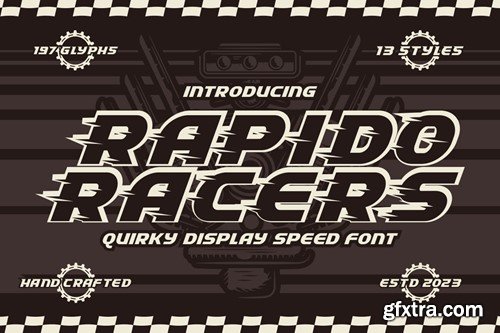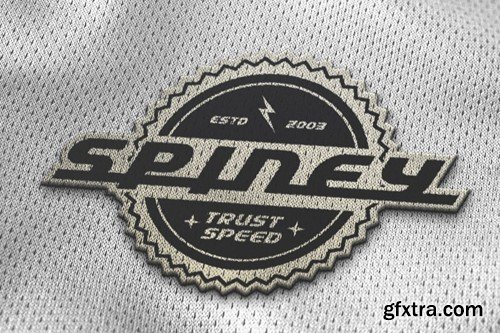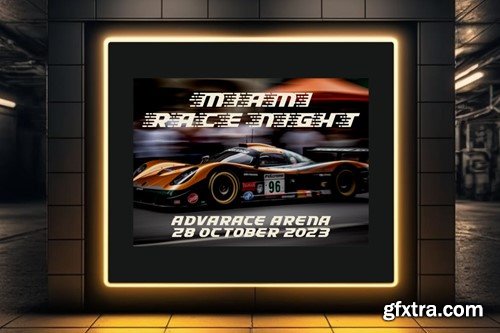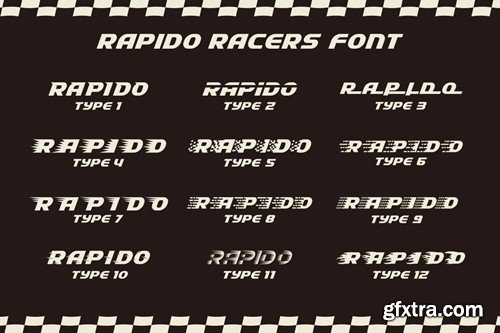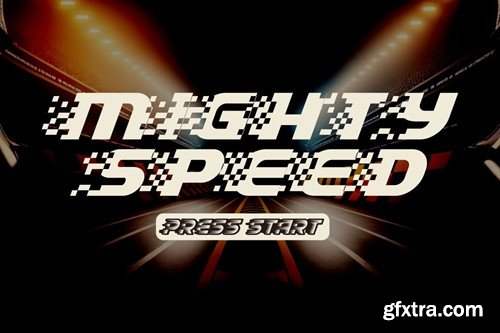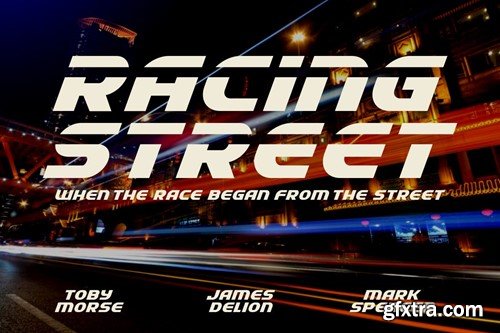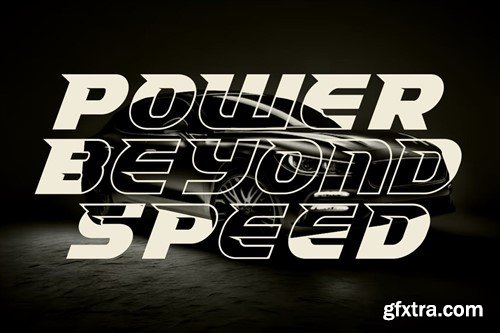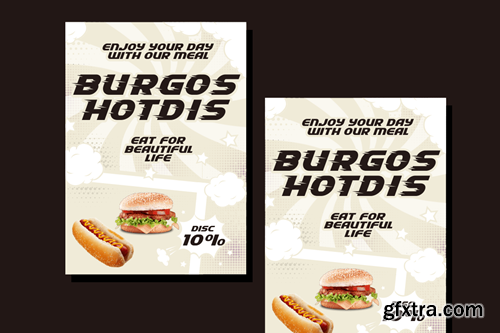
快速赛车手 - 奇趣展示速度字体 KYGCS2A
Rapido Racers - Quirky Display Speed Font Introducing “Rapido Racers” - a Quirky Display Speed Font that encapsulates the essence of speed, agility, and dynamism. Crafted meticulously to resonate with the fast-paced world of racing and e-sports, this font is a harmonious blend of pixel perfection and artistic craftsmanship. With 13 unique variations, each tailored to fit the theme of speed and sportiness, Rapido Racers is versatile yet specific in its application. Whether you’re designing logos that stand testament to the electrifying world of racing or branding materials that echo the swift movements of e-sports athletes, this font is your companion. Its strong display characteristics make it ideal for crafting eye-catching titles on posters or headings on web pages. Available in both OTF and TTF formats, Rapido Racers ensures compatibility and ease of use across various platforms. It’s not just a font; it’s a tool equipped with everything you need to convey speed, precision, and adrenaline in typography. In Package : Feature : Note : The preview mock-up, element, shadow, image or graphic stock is not included in the download file. It’s only for presentation purpose. Thank you